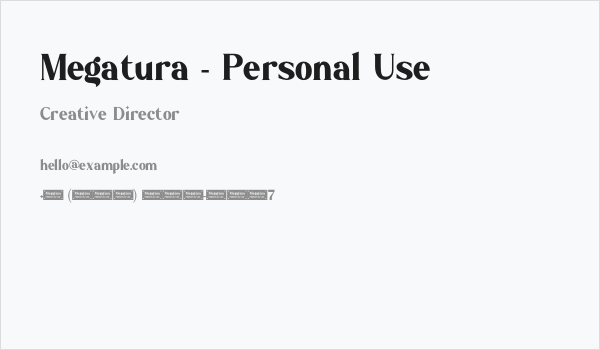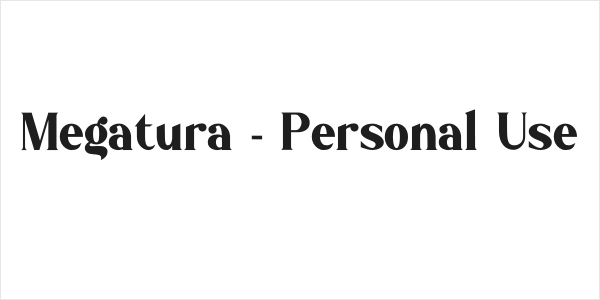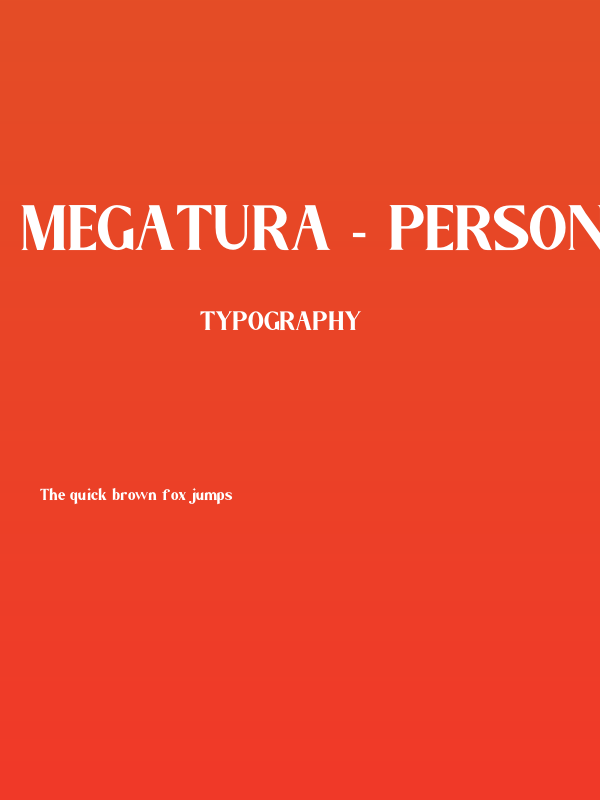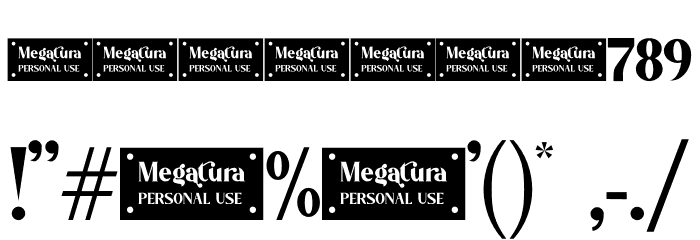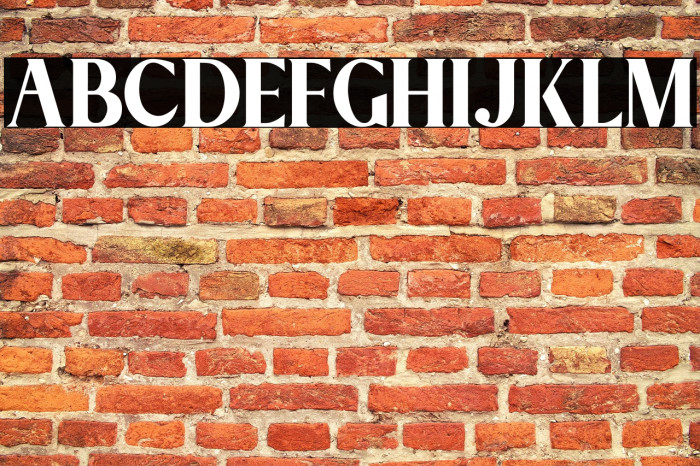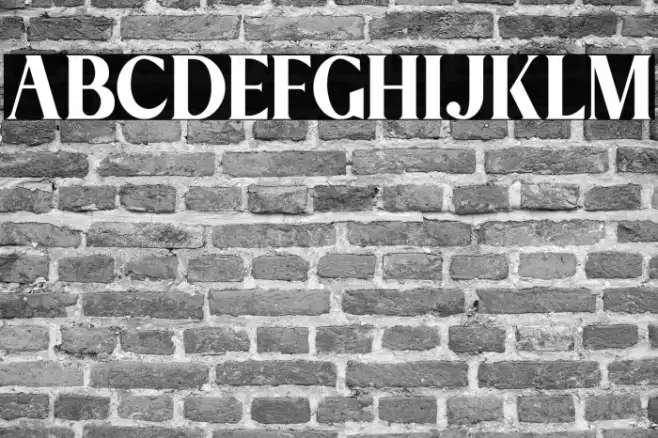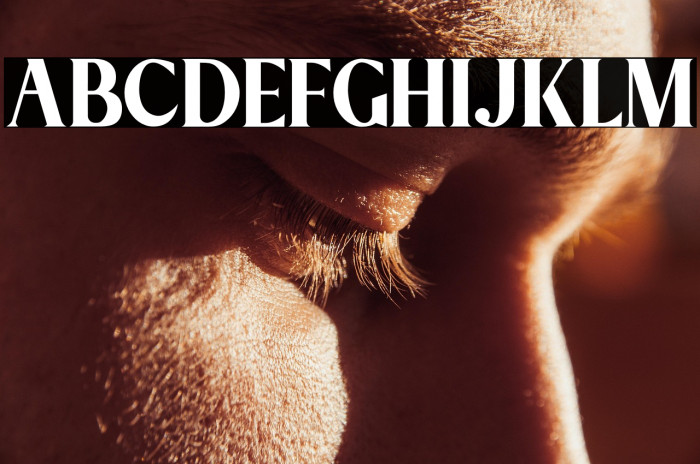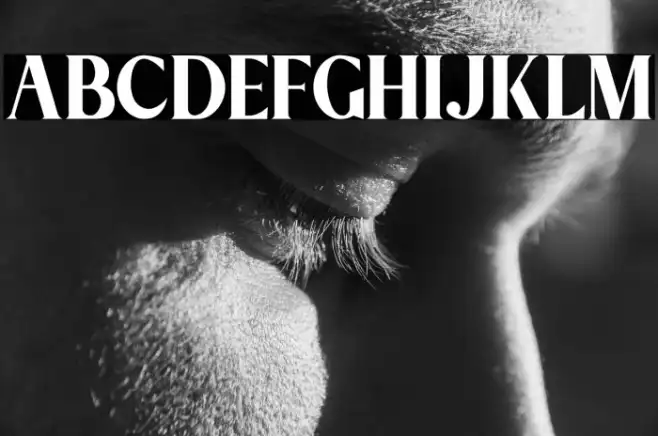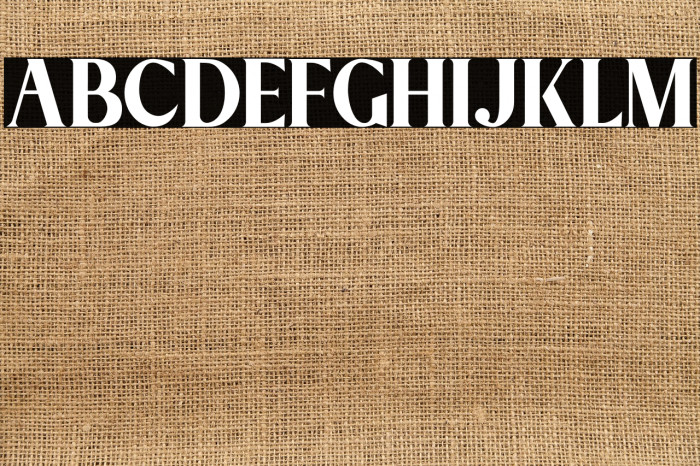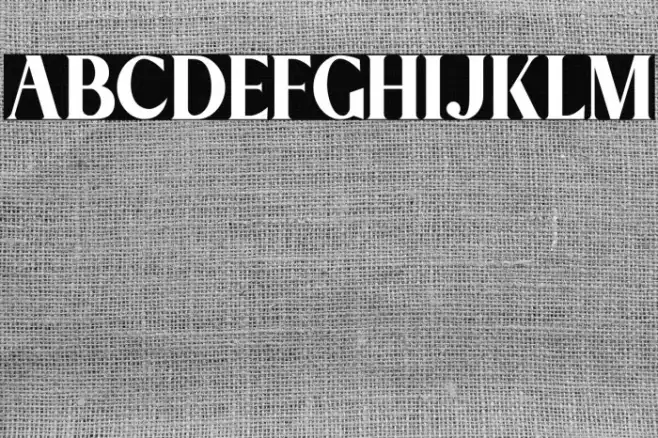
Megatura - Personal Use Font
Megatura - Personal Use Description
This font features a bold and striking design with a strong presence, characterized by its thick, angular serifs and high contrast between thick and thin strokes. The uppercase letters exhibit a commanding and authoritative style, while the lowercase letters maintain a playful yet sophisticated appearance. The numerals are consistent with the overall bold aesthetic, ensuring readability and impact. Special characters are crafted with the same attention to detail, making them suitable for a variety of design contexts. The font's unique style makes it ideal for projects that require a touch of elegance and boldness.
| Proposed Projects | Ideal for branding, headlines, posters, and editorial design where a bold statement is needed. |